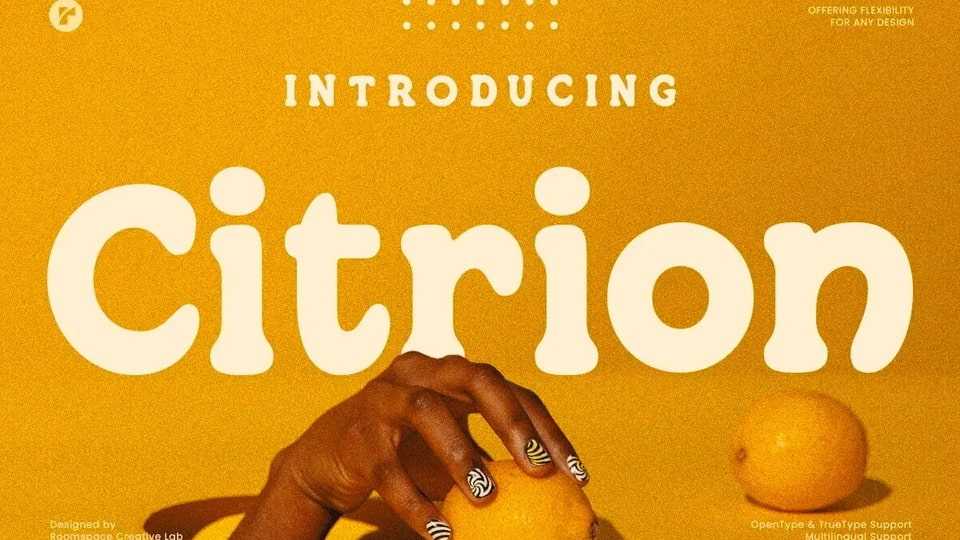
Download Citrion font, a bold and playful typeface that brings retro aesthetics to life with a modern twist. Its unique rounded edges exude a sense of fun, groovy charm, and vintage appeal.